Fancy Letter C Font
Every fancy font style rendered for just the letter C, so you can compare them side by side before picking one for an initial, a logo, or a single-character tag.
The Letter C in Every Style
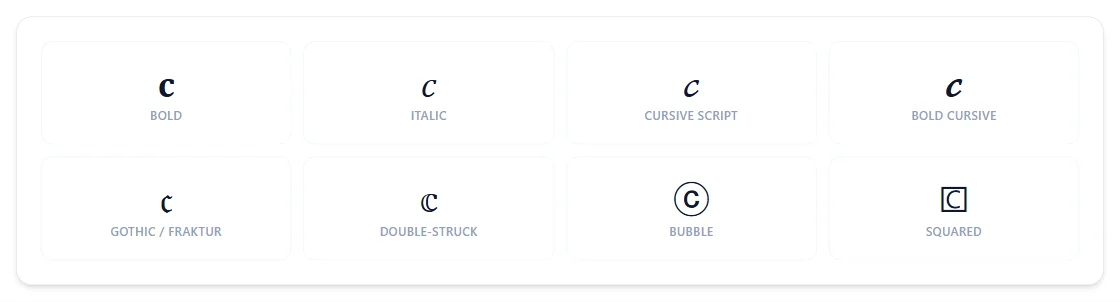
C shows up twice in real-world math notation through these styles: its Double-Struck form is ℂ, the standard symbol for the complex numbers, and its Fraktur form is ℭ, both borrowed from older Unicode ranges rather than the newer Mathematical Alphanumeric block.
Why does double-struck C look like a math symbol?
Because it is one — ℂ is the standard notation for the set of complex numbers, and Unicode's double-struck C reuses that exact character.